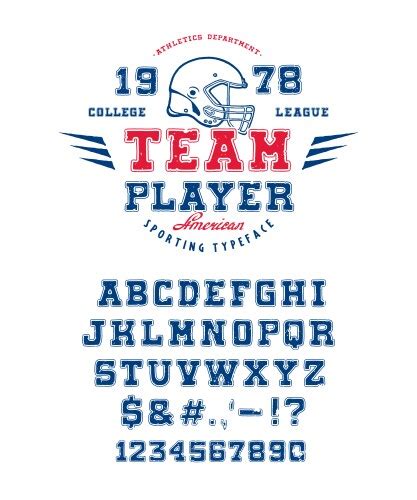
Download Free Baseball Number Fonts For Your Projects
Download Free Baseball Number Fonts for Your Projects
Hey guys! Are you looking to add some serious baseball flair to your designs? Whether you’re working on a sports-themed website, creating team logos, or just want to spice up your personal projects, baseball number fonts are the perfect way to do it. And guess what? You can often find them with a free download ! In this article, we’ll dive into the world of baseball number fonts, where to find them, and how to use them effectively. Get ready to knock it out of the park with your next design!
Why Baseball Number Fonts are Awesome
Alright, let’s talk about why these fonts are so cool. Baseball number fonts aren’t just about numbers; they’re about capturing the essence of the game. They evoke feelings of nostalgia, excitement, and team spirit. These fonts often feature bold, blocky designs, reminiscent of the jerseys and scoreboards we all know and love. They’re designed to be easily readable from a distance, just like a player’s number on the field. Think about it: when you see a specific font, you instantly associate it with baseball, making your project instantly recognizable and engaging for fans. They’re also incredibly versatile, working well in a variety of design contexts. You can use them for everything from team branding to posters, social media graphics, and even merchandise. The best part? Many of these fonts are available as a free download , so you can get started without breaking the bank. Baseball number fonts are a fantastic way to elevate your designs and connect with the spirit of the game. They bring that authentic baseball feel, making your projects stand out and resonate with your audience. So, if you’re looking for a way to add a touch of baseball magic, these fonts are definitely worth exploring!
Moreover, the unique character of these fonts extends beyond their visual appeal. They often come with a variety of styles, such as regular, italic, and outline versions, providing flexibility in your designs. You can also find fonts that mimic the style of famous baseball teams, allowing you to pay homage to your favorite franchises. This level of detail makes them perfect for creating custom team logos or commemorative projects. The use of these fonts can dramatically improve the visual appeal of any project related to sports or baseball. They’re great for posters, flyers, and social media posts, immediately communicating the theme. Plus, with the abundance of free download options available, you can experiment with different styles and find the perfect fit for your specific needs. The possibilities are endless, and you’re only limited by your creativity! They provide a quick, simple, and effective way to infuse your projects with the essence of baseball. So, whether you are a designer, a baseball enthusiast, or just someone who loves the look, these fonts offer a powerful tool to capture attention and communicate your message.
Tips for Using Baseball Number Fonts Effectively
Alright, you’ve got your baseball number fonts – now what? Let’s talk about how to use them effectively to make your designs really shine. First off, consider the context of your design. What’s the overall message you’re trying to convey? Is it a serious team announcement, a fun social media post, or a nostalgic poster? The tone of your design should align with the font’s style. For example, a bold, blocky font might be perfect for a team’s official logo, while a more stylized font might be better suited for a retro-themed design. Play around with different font sizes and weights. Experiment to find the perfect balance that is easy to read and looks good on your project. The most important thing is to ensure that the font is legible, especially in smaller sizes. Nothing is worse than a cool font that’s hard to read!
Next up, pay attention to the color scheme. Baseball number fonts often work best with colors that are associated with the sport, like red, blue, green, and white. However, don’t be afraid to experiment with other colors to create a unique look. Consider the background of your design as well. A light-colored font will often look best on a dark background, and vice versa. Contrast is key to ensure your text is visible and catches the eye. The use of bold and italic can also add depth to your designs. Use bold to emphasize important words or phrases, and italic to create a sense of movement or style. Combining these fonts with other design elements is also essential. Think about incorporating baseball imagery, such as baseballs, bats, and gloves, to enhance the theme. And don’t forget to consider spacing and alignment. Ensure that your text is well-aligned and that there’s enough space around the letters so your text isn’t cramped. Proper spacing and alignment will make your design more visually appealing and easier to read. Using shadows and outlines is another useful tip. These effects can add depth and make your text stand out, especially against a busy background. Shadows and outlines can also create a 3D effect, adding a touch of professionalism to your project. By carefully considering all these tips, you can effectively use baseball number fonts to create eye-catching designs.
Moreover, remember to test your design. After you’ve finished creating your design, it’s essential to test it in different contexts to ensure it looks good across various platforms and devices. The design that looks great on your computer may not look the same on a mobile phone or tablet. So, take the time to check how it looks on different devices and adjust it as needed. Another helpful tip is to avoid using too many different fonts in one design. Overusing different fonts can create a cluttered and confusing look. It’s better to use one or two fonts to keep your design clean and unified. Also, be mindful of the kerning, which is the space between the letters. Poor kerning can make your text difficult to read and look unprofessional. Adjusting the kerning to fit the font’s needs is a good practice. Finally, get feedback from others. It’s always helpful to get feedback from other people to see how they perceive your design. Ask friends, family, or colleagues for their opinions and incorporate their feedback into your design. This can help you refine your design and make it even more effective. By paying attention to these tips, you’ll be well on your way to creating stunning designs with baseball number fonts .
Combining Fonts for a Winning Look
Let’s explore how to combine different fonts to create designs that are visually appealing and cohesive. The key to successful font pairing is to create contrast while maintaining harmony. A great approach is to pair a bold baseball number font with a complementary font for body text or other design elements. You can achieve this by using a sans-serif font for the main numbers and a serif font for supporting text. This combination works well because it creates visual interest while ensuring readability. A common technique is to use different font weights or styles within the same font family. For example, you can use a bold version of a font for headings and a regular version for body text. This will help create a sense of hierarchy in your design. Another approach is to use two different fonts that share some common characteristics. This can be achieved by using a sans-serif font with a similar x-height or stroke width to your baseball number font . This will help tie the fonts together and create a unified look. A popular trend is to combine a baseball number font with a script or handwritten font. This combination can create a more personal and playful feel. However, when using script fonts, it’s essential to ensure that they are readable, especially in smaller sizes.
Conclusion: Get Your Game On!
There you have it, guys! Baseball number fonts are a fantastic way to add some excitement and personality to your designs. With a wide variety of fonts available, including many for free download , you can easily find the perfect style for your projects. Remember to consider the context of your design, experiment with different font combinations, and pay attention to the details. Have fun with it, and let your creativity shine! Now go out there and create some winning designs that will knock your audience’s socks off! Remember to always check the license of any font, but enjoy creating awesome designs with these baseball fonts!